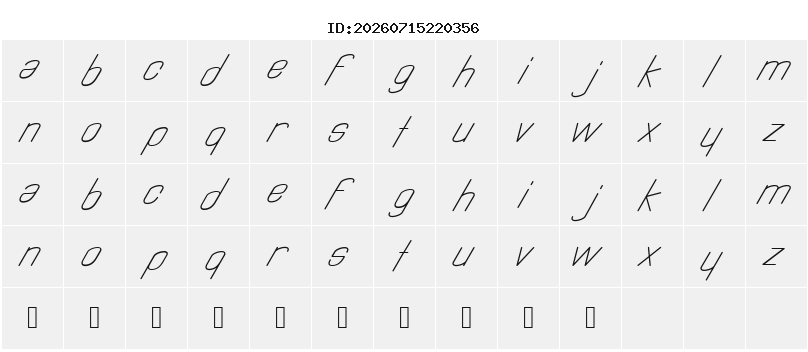
Astralia Preview
• Font Name: Astralia
• Full Font Name: Astralia
About Astralia.ttf
Astralia.ttf is a modern, elegant sans-serif font designed for ultimate readability and visual harmony. Perfect for branding, headlines, web design, and print materials.